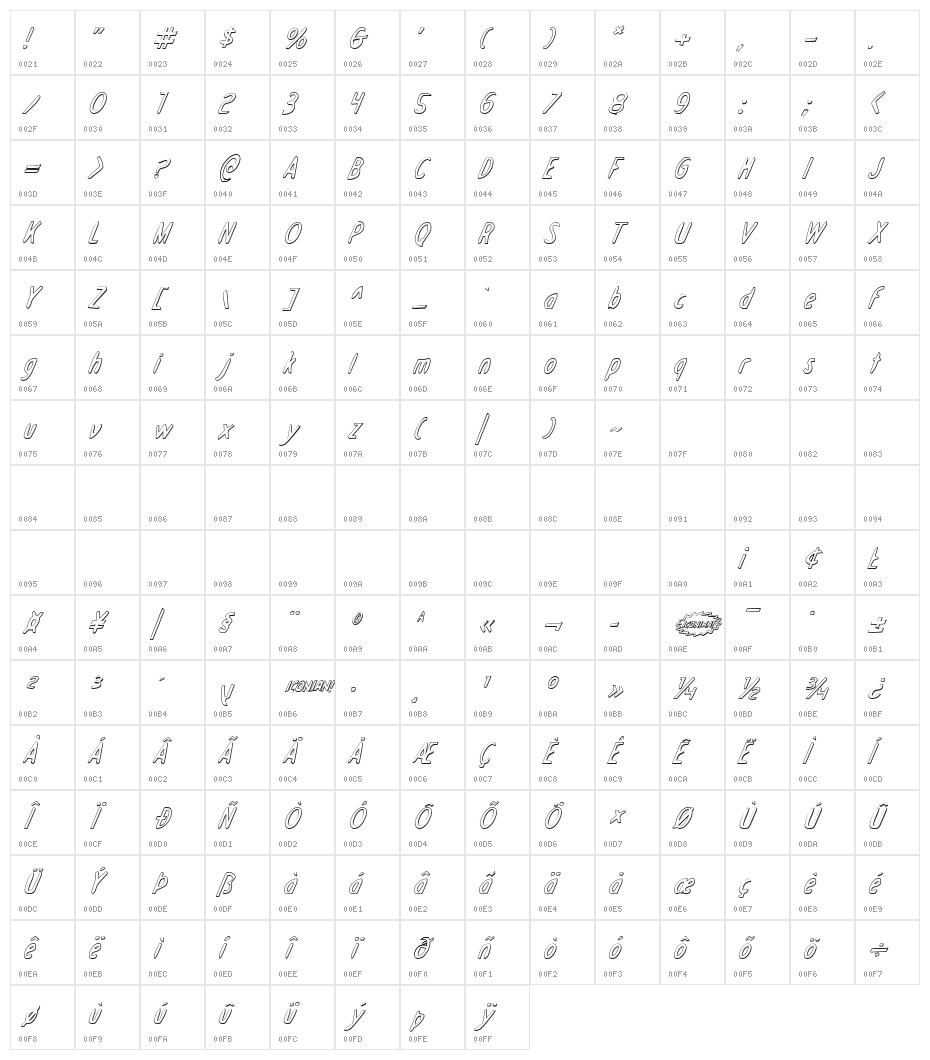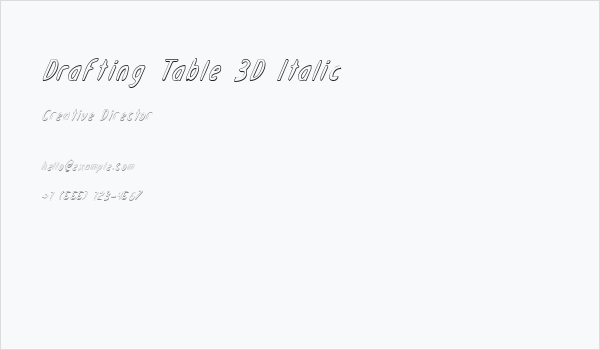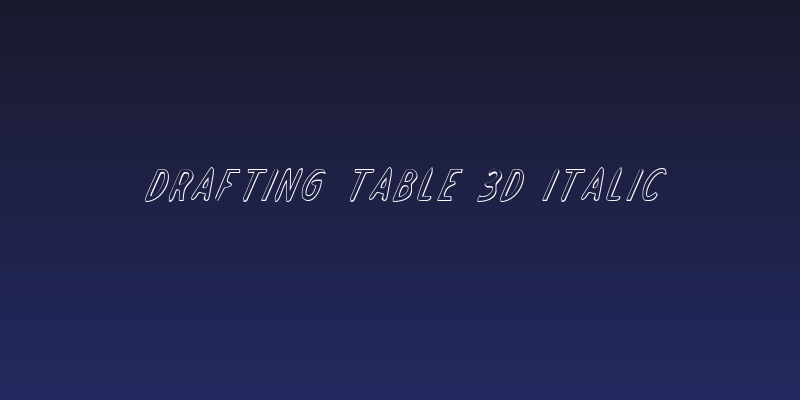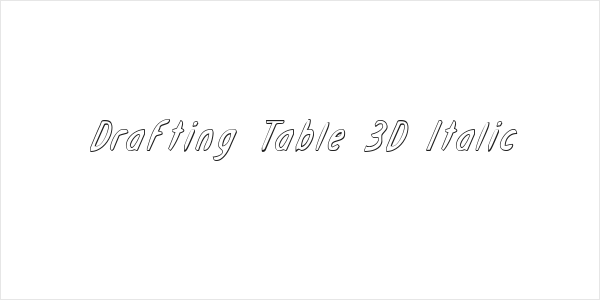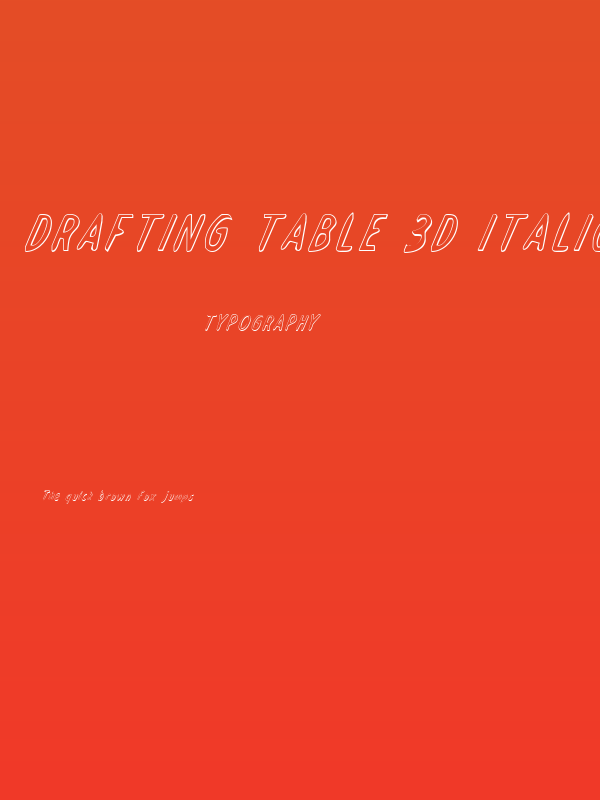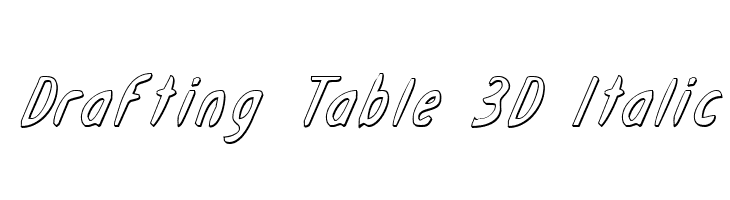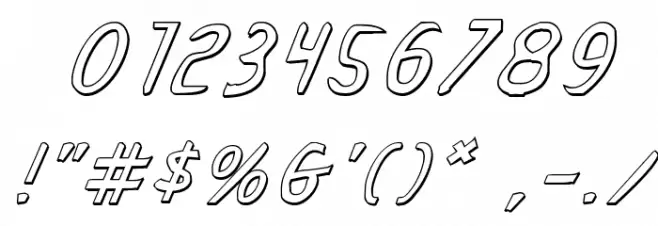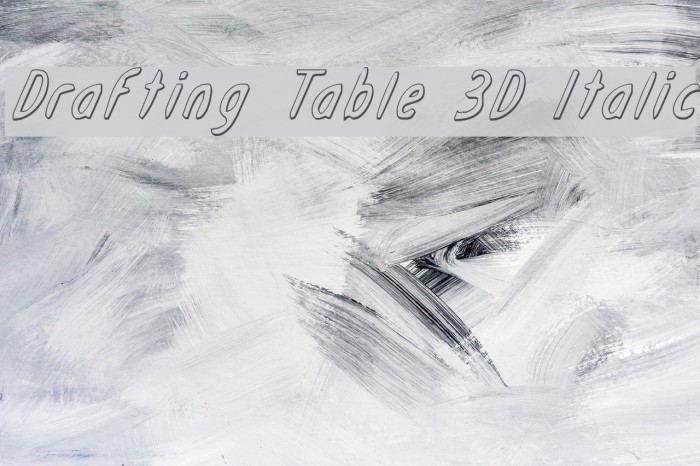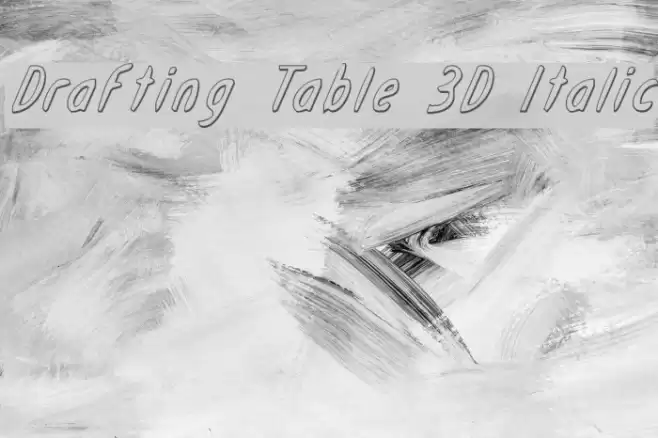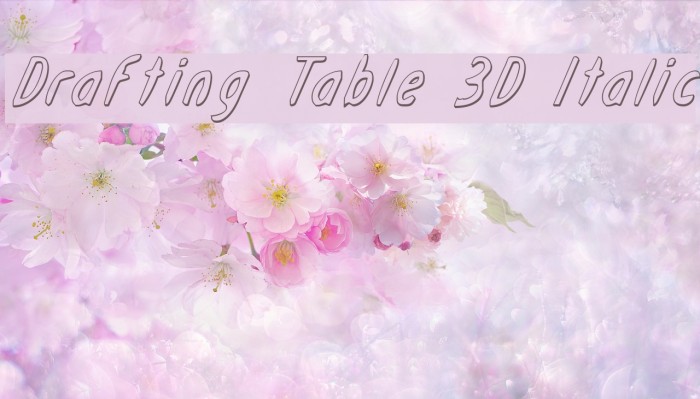
Drafting Table 3D Italic Font
Drafting Table 3D Italic Description
This font features a dynamic and playful design with a 3D italicized effect, giving each character a sense of depth and movement. The letters are outlined, creating a bold visual impact while maintaining a light and airy feel. The uppercase and lowercase letters are consistent in style, with smooth curves and sharp angles that enhance the font's modern aesthetic. The numbers and special characters follow the same design principles, ensuring uniformity across all glyphs. This font's unique style makes it suitable for creative and eye-catching designs.
| Proposed Projects | Ideal for posters, headlines, logos, and any project requiring a bold, creative touch. |